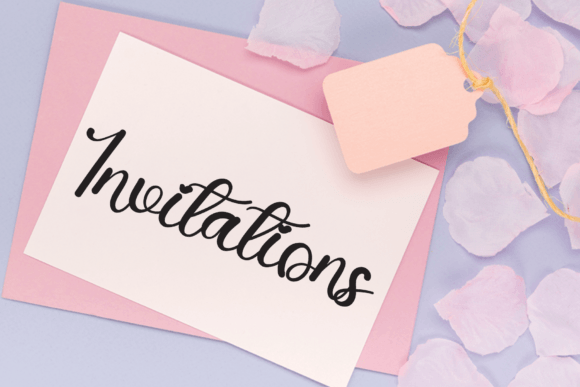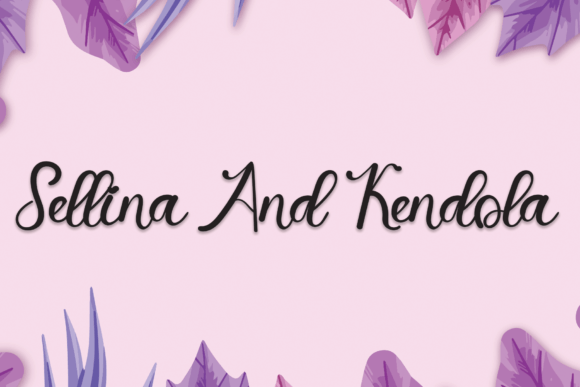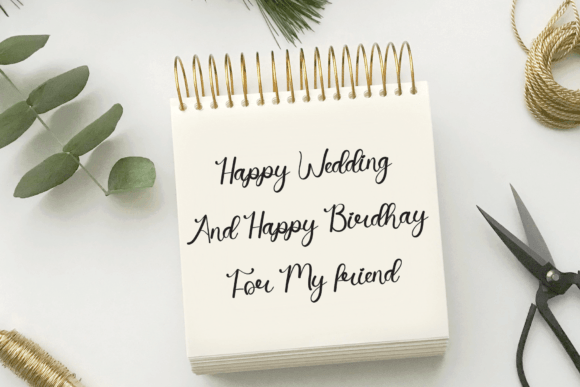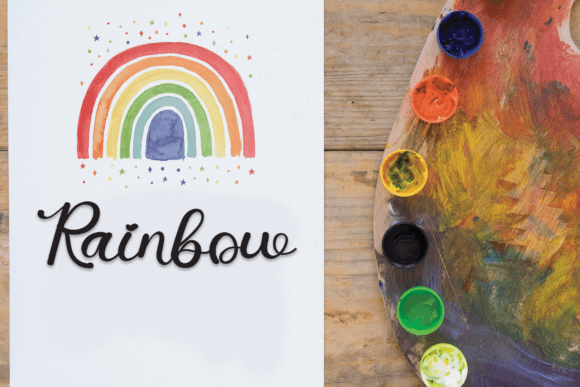
Writing Mandala Font
About Writing Mandala Font
The Writing Mandala font is a cheerful and clean handwritten typeface designed to bring warmth and friendliness to any creative project. Its simple strokes and natural rhythm make it easy to read, while its human touch adds personality to your work. Whether you’re designing digital content or physical crafts, this font offers a versatile solution that feels authentic and accessible.
With a modern yet casual look, Writing Mandala helps you communicate with ease and emotion—making it perfect for a wide range of uses.
Simple, Clean, and Approachable
The font’s structure is soft and balanced. Letters are slightly rounded and connect smoothly, imitating a relaxed handwritten style without sacrificing legibility. This makes the Writing Mandala font an excellent choice for designs that require clarity with a touch of creativity.
Here are just a few ways you can use it:
• Craft projects and handmade product labels
• Educational materials and worksheets
• Digital presentations and blog graphics
• Social media content and quote posts
Its clean design ensures it performs well on both print and screen, and its personality makes even simple messages feel special.
Designed for Everyday Creativity
What makes Writing Mandala especially useful is its ability to adapt. It works beautifully in casual and semi-formal contexts. Use it as the main font in playful invitations or as an accent in more polished layouts.
Because of its friendly tone, it’s ideal for brands or creators who want to appear genuine, positive, and relatable. It pairs well with minimalist sans-serifs, giving you freedom to build dynamic and modern compositions.
Add Personality to Every Design
If you’re looking for a handwritten font that’s both clean and expressive, the Writing Mandala font is the perfect addition to your collection. It adds a personal flair to your designs while keeping them clear and easy to understand.